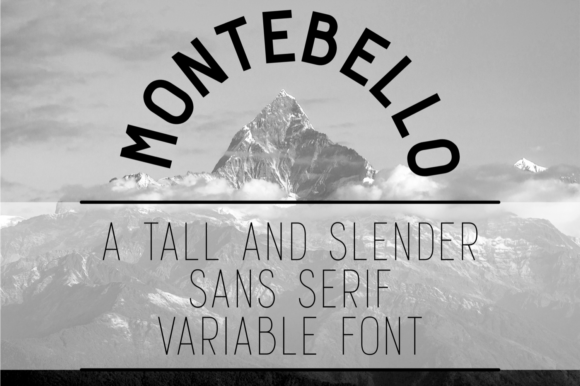
Behold, the Montebello Font, hailing from the creative mind of thorchristopherarisland, is an alluring sans serif typeface that will transform your designs into captivating masterpieces. Prepare yourself to be overwhelmed by its tall and slender structure, providing an extraordinary presence that commands attention.
Designed with precision, Montebello is a font of versatile elegance, encompassing a wide spectrum of styles. From clean and minimalist aesthetics to bold and energetic expressions, Montebello seamlessly adapts to your creative vision. Its inherent versatility makes it a font that knows no bounds; it articulates your words with equal grace, whether it's an intimate love letter or a grand marketing campaign.
Montebello's applications are as diverse as its charm. It effortlessly elevates the beauty of wedding invitations, lends a touch of sophistication to business cards, and brings life to posters and flyers, ensuring your message is received with the impact it deserves. Its digital prowess shines through in website designs, captivating online readers with its elegance and clarity.
What truly sets Montebello apart is its ability to elevate any creation. It possesses an uncanny knack for transforming ordinary words into something extraordinary. Its presence elevates logos to the realm of iconic imagery, capturing the essence of your brand with undeniable visual appeal. Montebello breathes life into headlines, making them leap off the page and demand attention. It gracefully adorns social media posts, ensuring your content stands out in the crowded digital landscape.
With Montebello at your disposal, your creative potential reaches new heights. Embrace its versatility and let your imagination soar. The possibilities are endless, and the results are nothing short of remarkable.